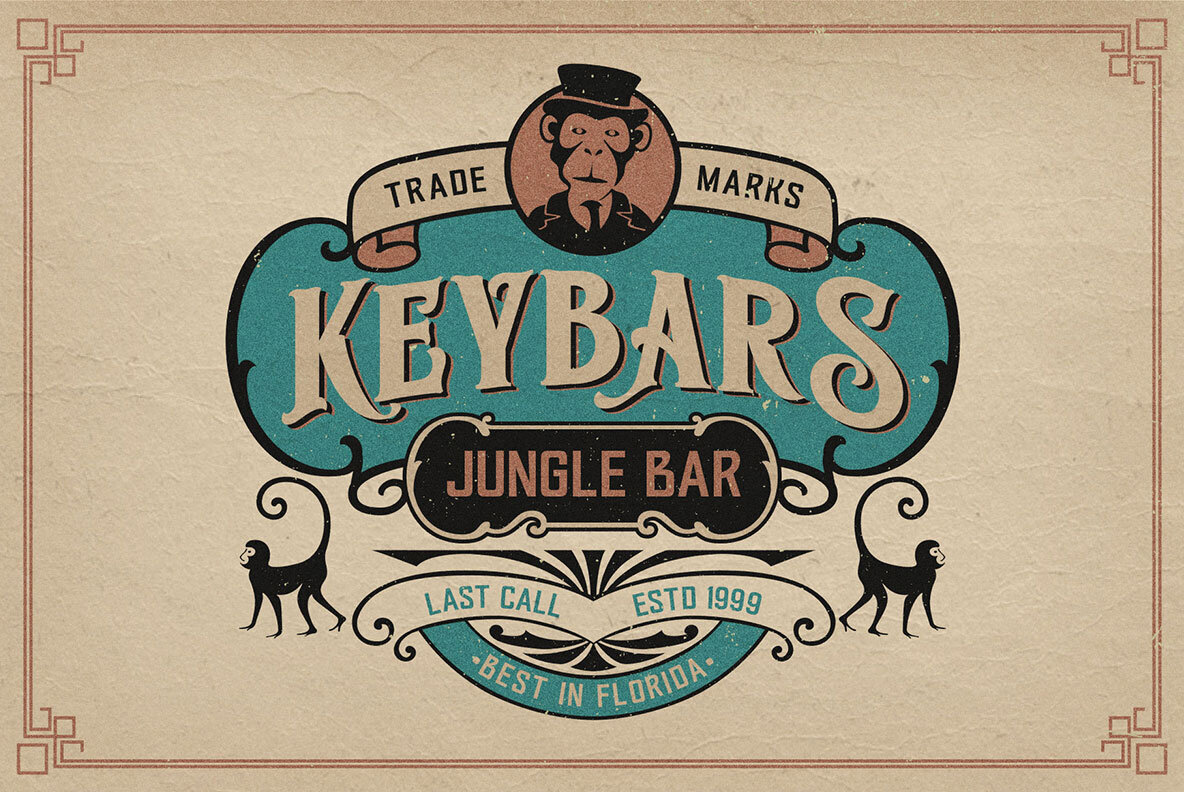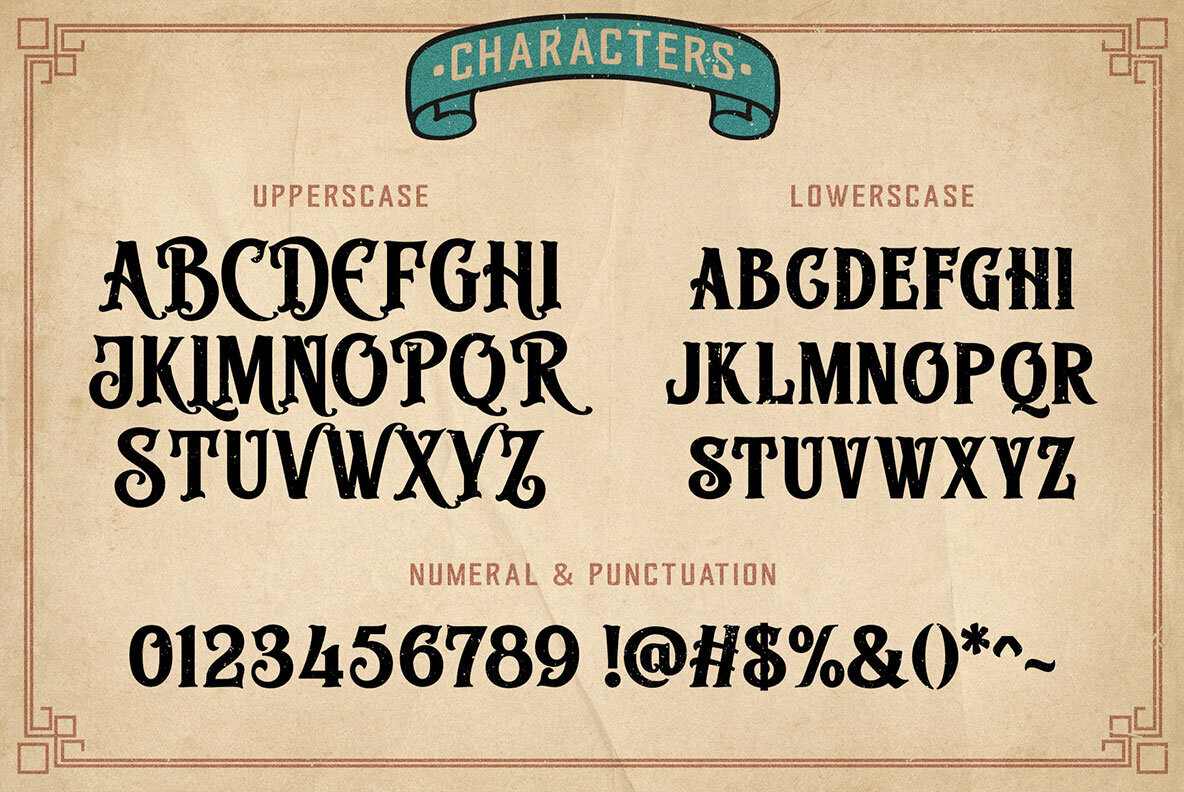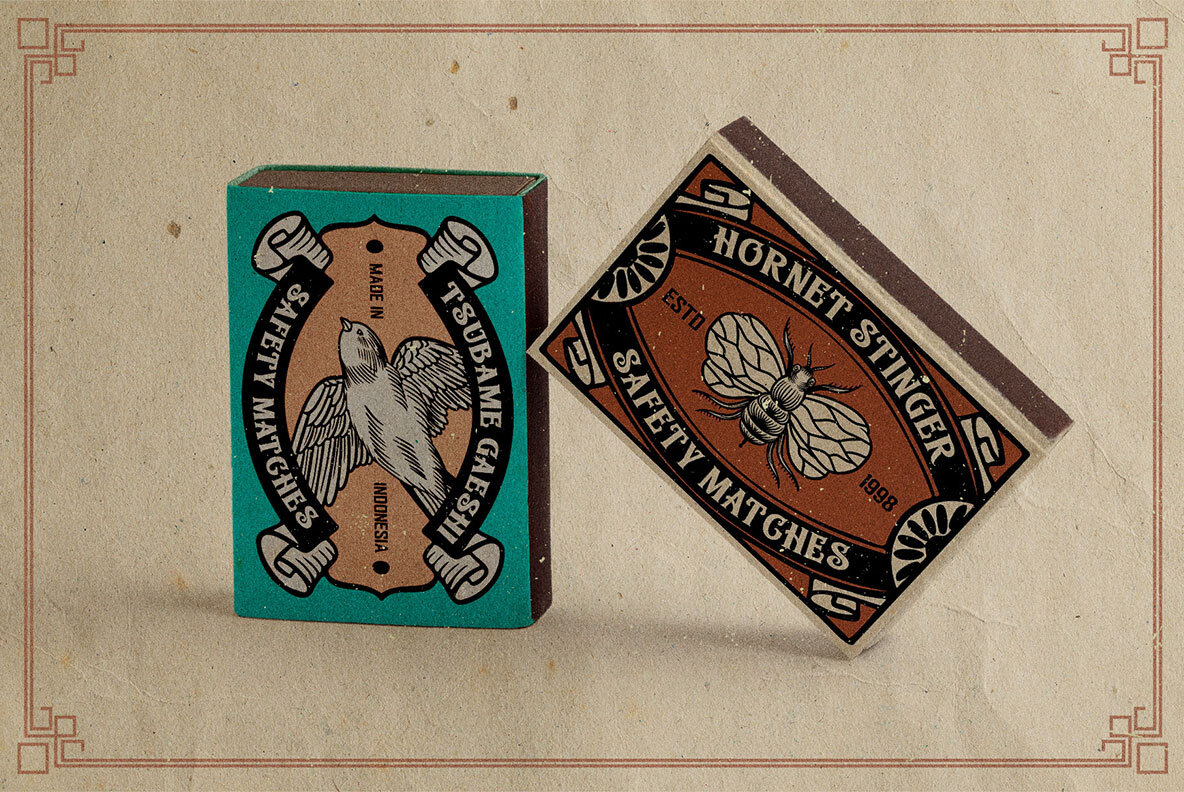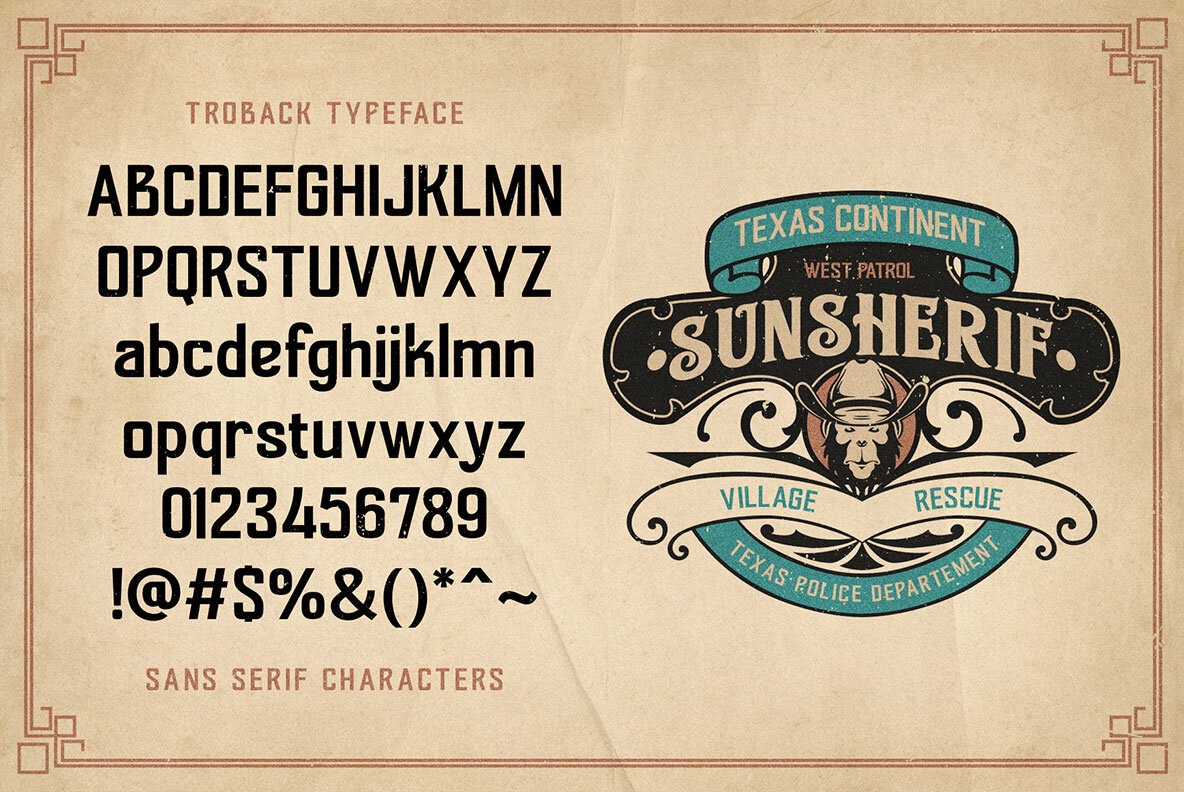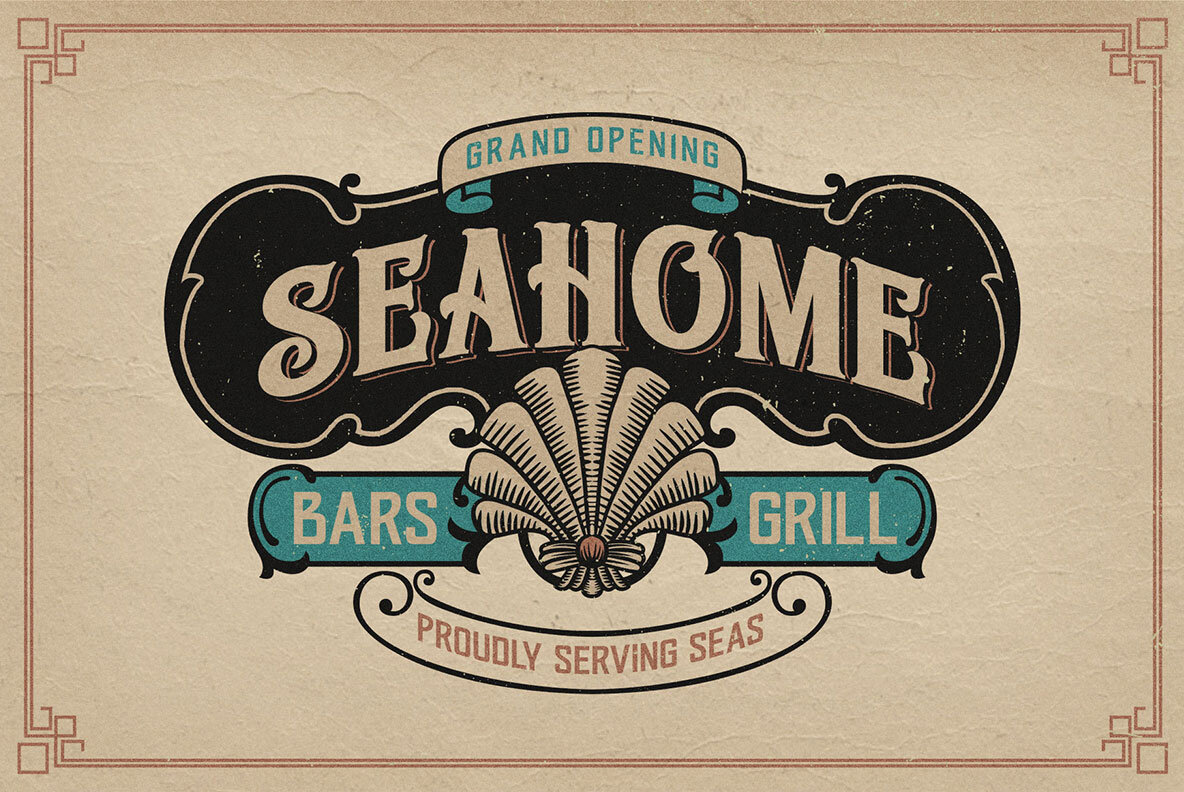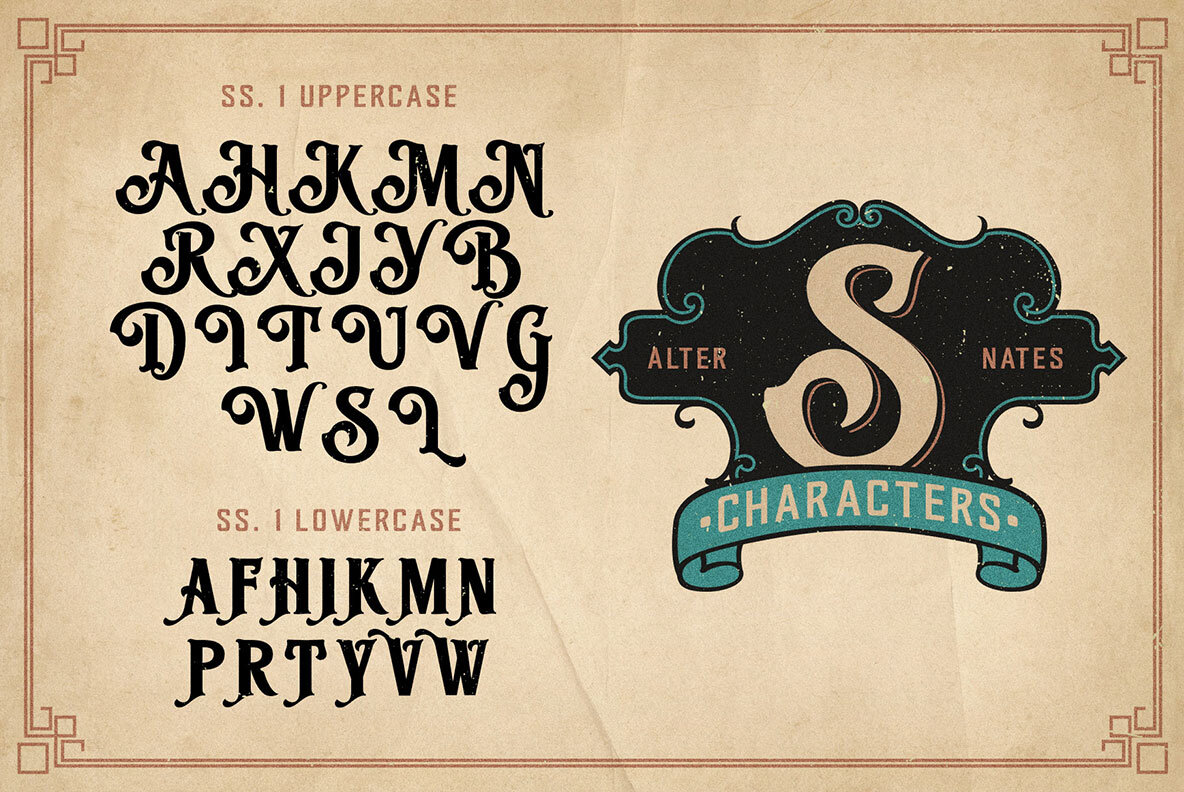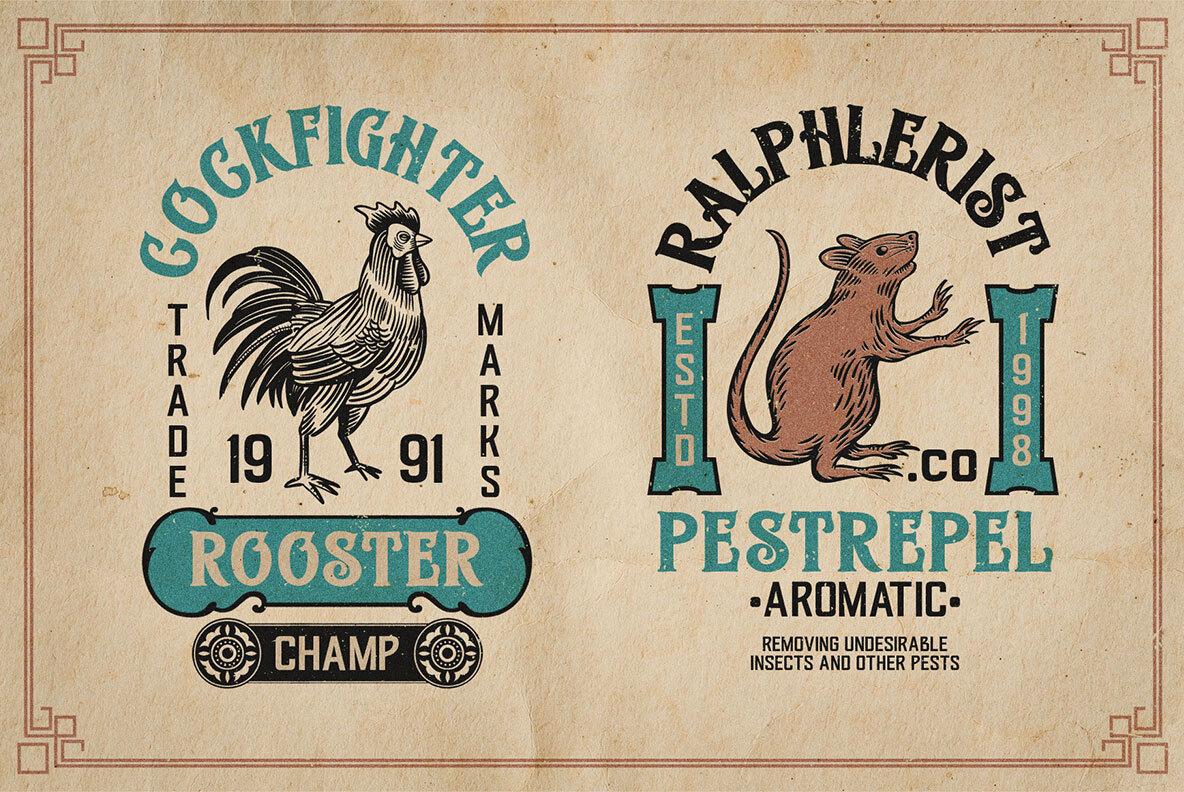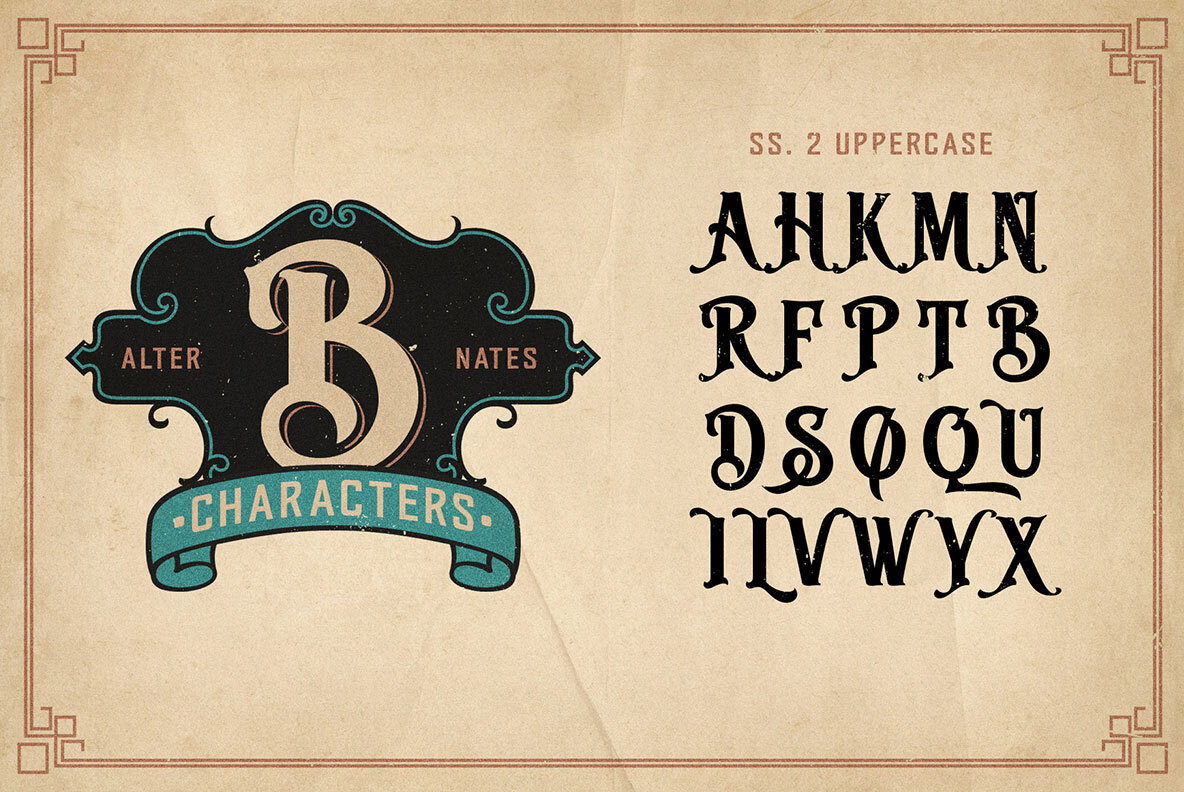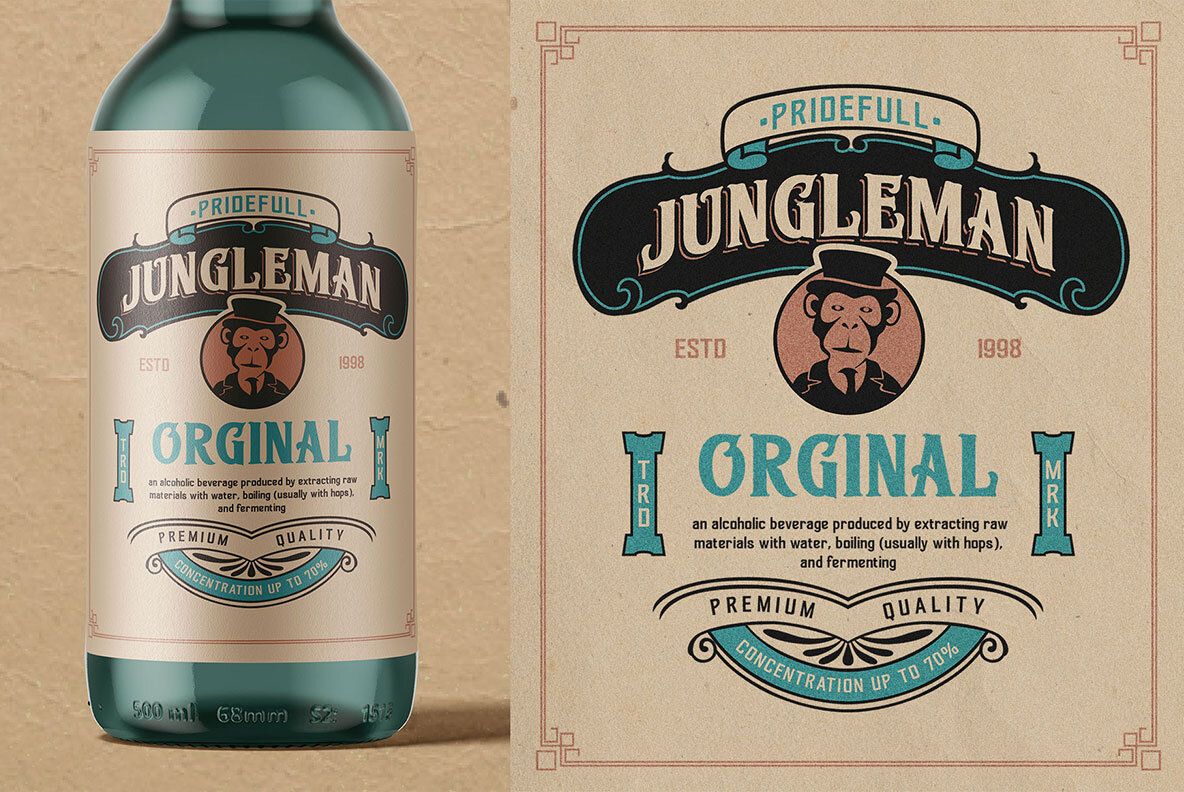
Troback Font
Troback Sans
Troback regular
Introducing Troback - A Vintage Display Font. Step into a realm of timeless elegance with Troback, a meticulously crafted vintage display font that pays homage to the design aesthetics of the past. With its distinctive retro charm, Troback encapsulates the spirit of a bygone era, where every letter tells a story. Inspired by the ornate typography of vintage signage, Troback is a masterful blend of boldness and sophistication. Its characters are imbued with intricate details, from the delicate serifs that harken back to a more refined age, to the captivating curves that dance along the baseline with a sense of purpose. This font conjures nostalgia with every stroke, summoning memories of old cigar box labels, antique shop signage, and classic posters that once adorned bustling city streets. Troback isn't just a font; it's a journey through history, a bridge between the craftsmanship of yesterday and the creativity of today. Ideal for branding that craves a touch of vintage authenticity, for designs seeking to recapture the allure of a vintage era, Troback stands as a testament to the enduring power of timeless typography. Let your words resonate with the elegance of a bygone time - let them speak through Troback.